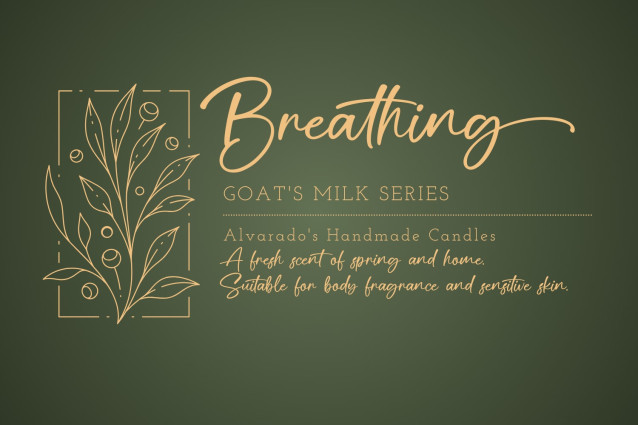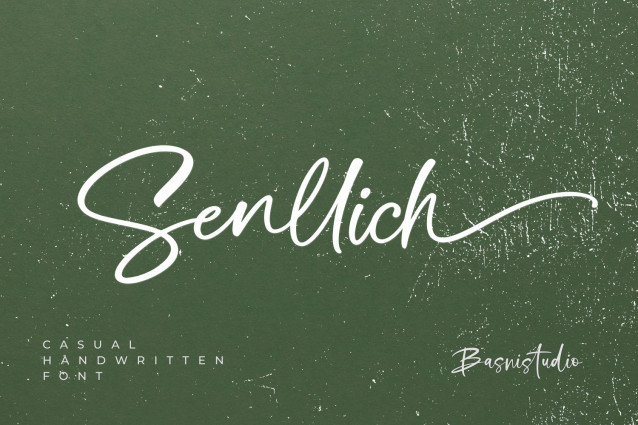
Senllich Script Font
Senllich Script Font is a beautifully crafted handwritten typeface that adds a natural, personal touch to everything from branding and social media to invitations and packaging.